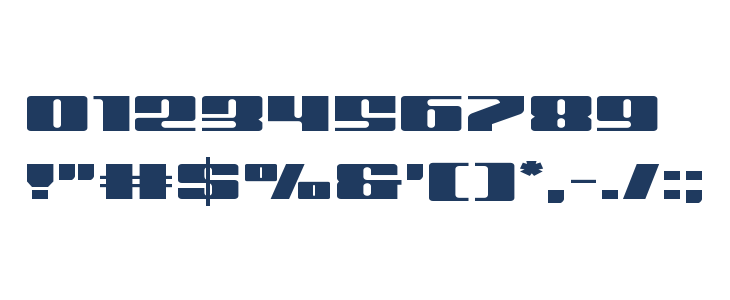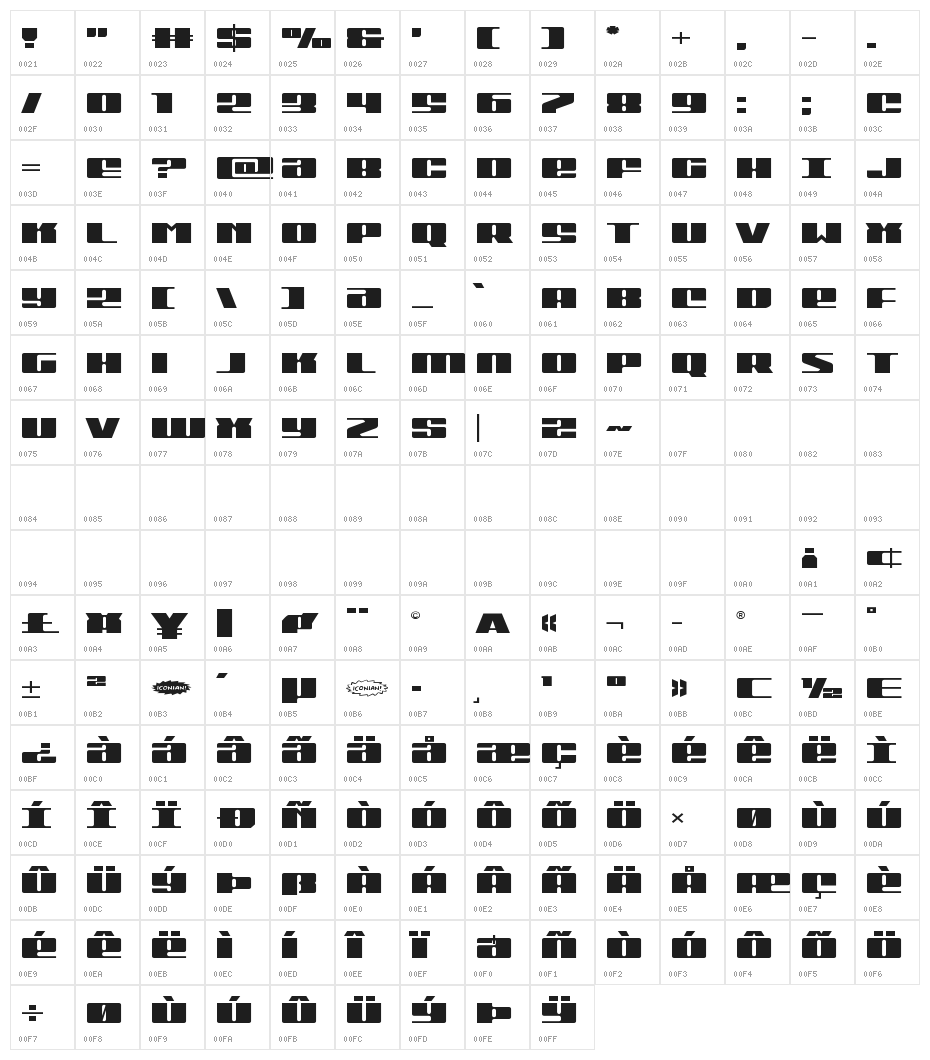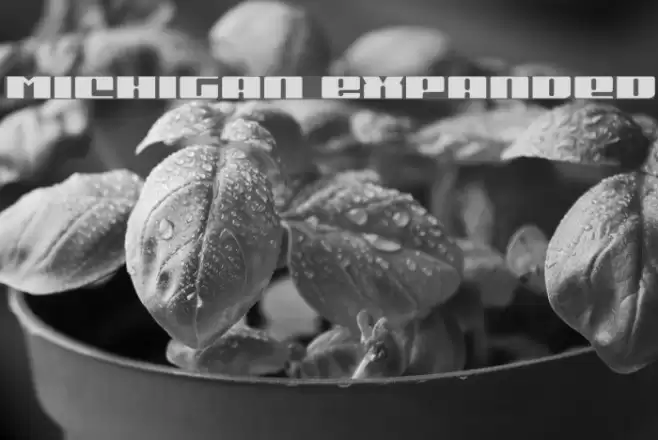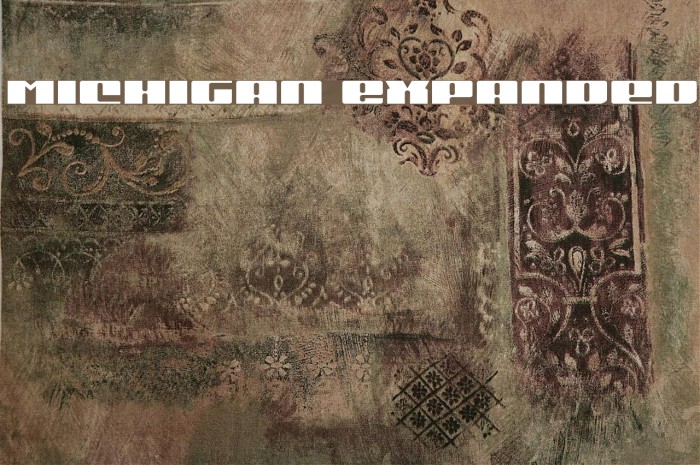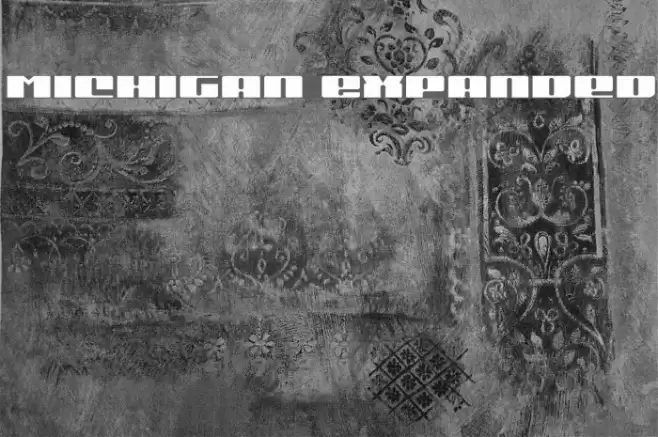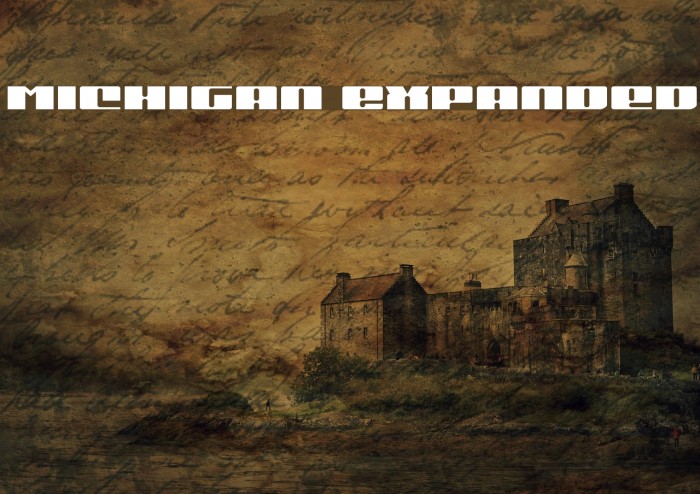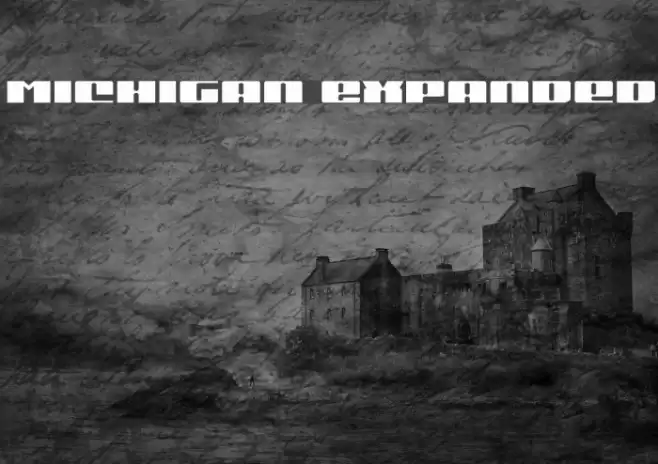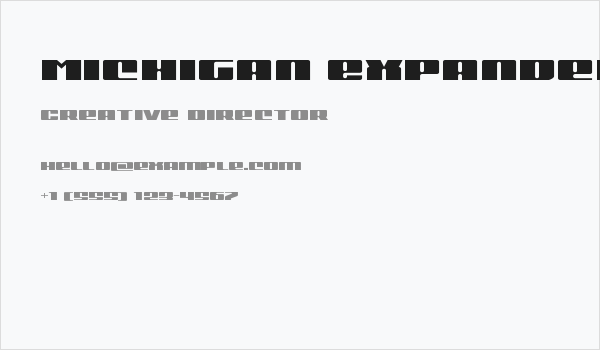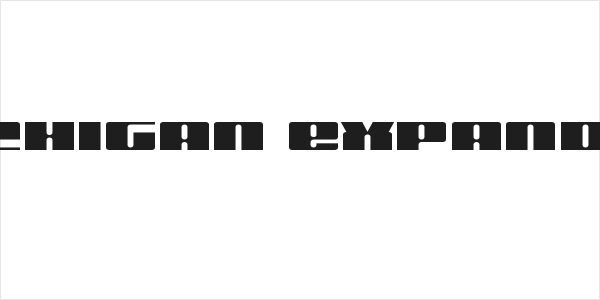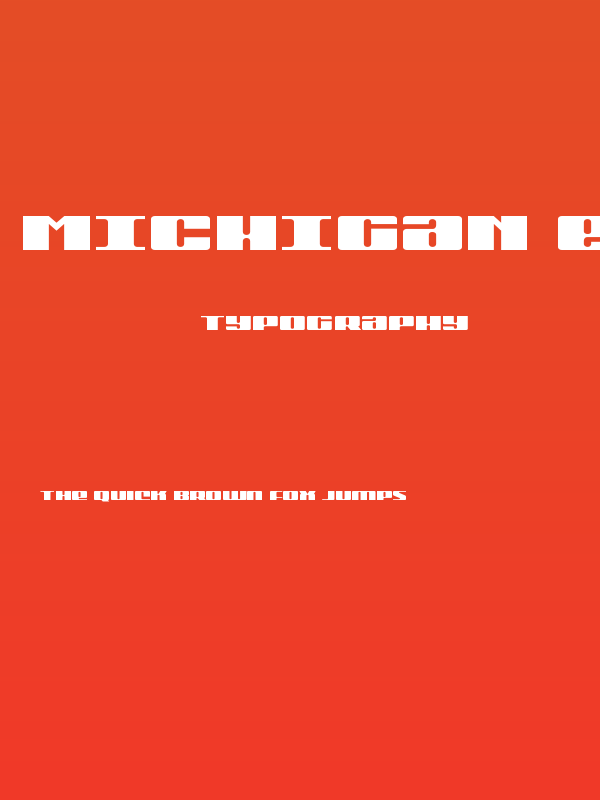
Michigan Expanded Font
Michigan Expanded Description
This font features a bold and striking design with a distinctly modern and industrial feel. The characters are wide and blocky, with a strong presence that commands attention. Each letter is crafted with a geometric precision, featuring sharp angles and clean lines that give it a futuristic appearance. The uppercase letters are particularly prominent, with a uniform height and width that create a cohesive look. The numbers and special characters maintain the same bold style, ensuring consistency across all text. This font's unique style makes it ideal for projects that require a strong visual impact.
| Proposed Projects | Ideal for branding, posters, headlines, and any design requiring a strong visual impact. |